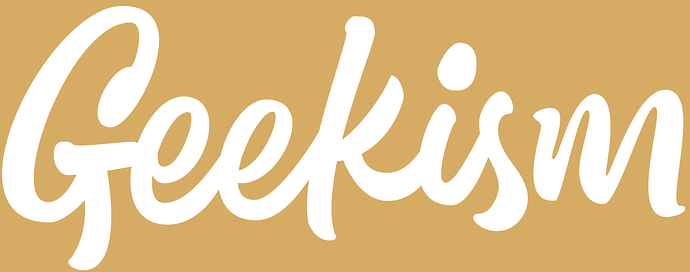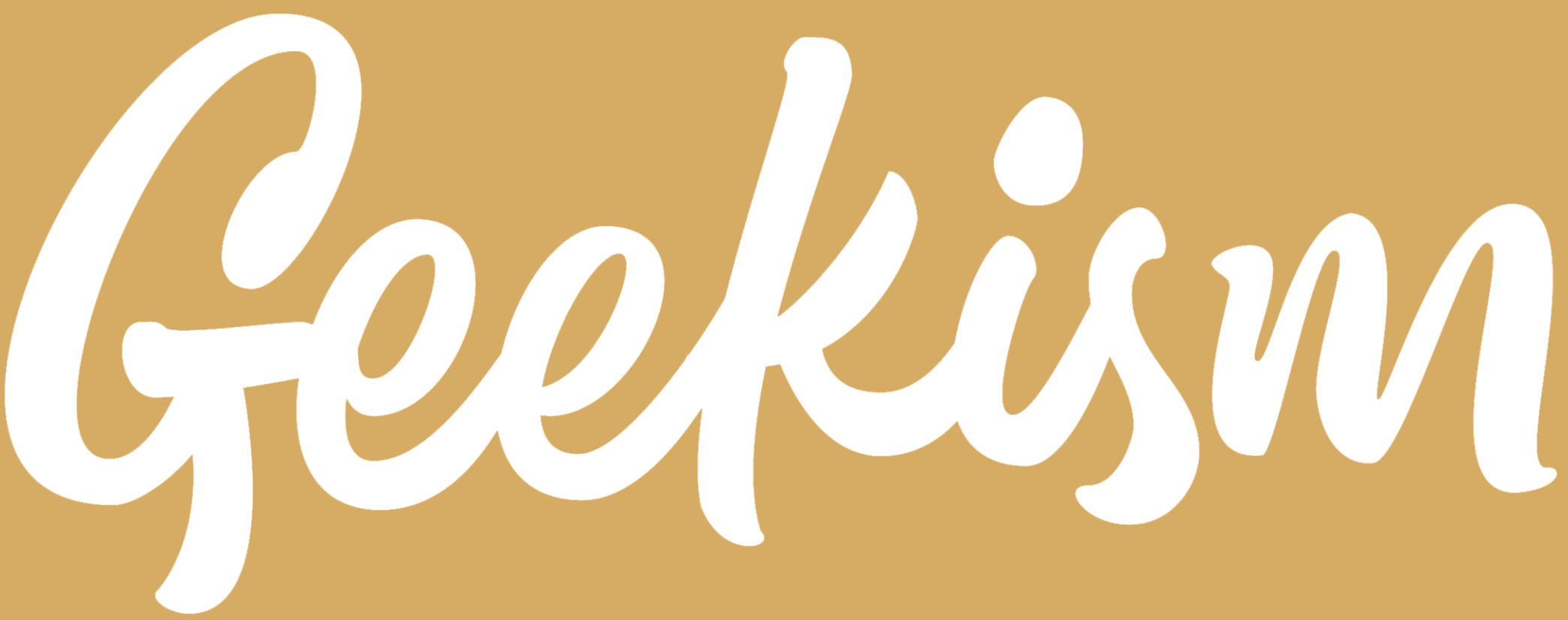
Does anyone know what font is used on Geekism’s Youtube Channel? www.youtube.com/geekism/
Going to take a punt and say this is handwritten - due to the repeating letters not matching up.